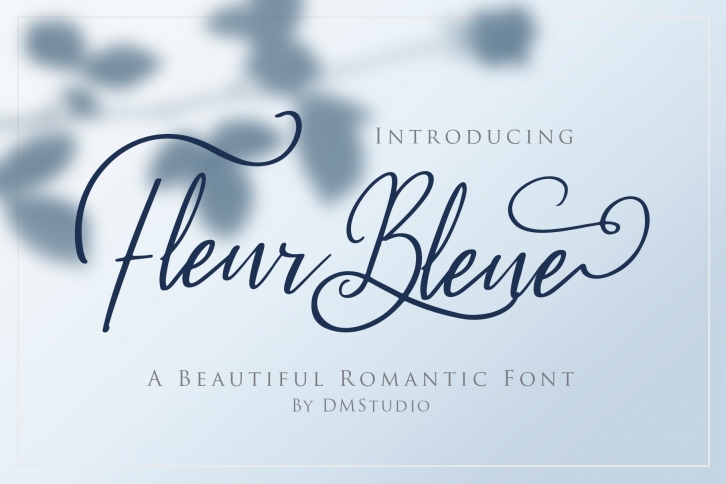
Fleur Bleue is a trendy and unique font with an authentic style. It was designed by DMletterstudio and it's a great choice for creative people who need such a font. It was released on May 31, 2019 and the file size is 3.30 MB. Fleur Bleue will add an organic vibe to any design idea!